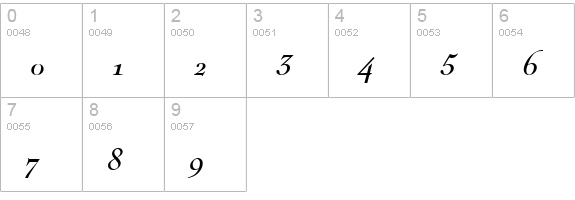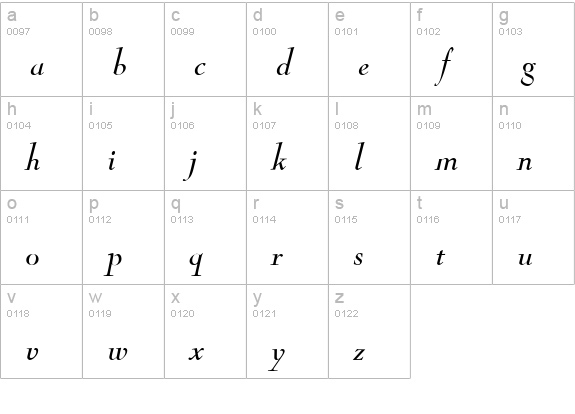
Nicolas-Italic is a distinctive, italic variant in the Nicolas typeface family \xE2\x80\x94 well suited to design and typography projects.
Nicolas-Italic is a sleek and sophisticated font that exudes elegance and style. With its italicized design, this font brings a touch of modernity to any project it is used in. The slanted letters convey a sense of movement and dynamism, making Nicolas-Italic perfect for adding a contemporary flair to your designs. What makes Nicolas-Italic even more appealing is that it is available for free download at FontsMarket.com. This means you can easily access this captivating font and incorporate it into your creative endeavors without any cost. Whether you're working on a branding project, a website design, or any other creative venture, Nicolas-Italic is sure to elevate your work with its distinctive and refined appearance. Download it now and let your designs stand out with this exquisite font.